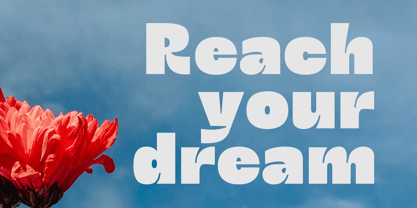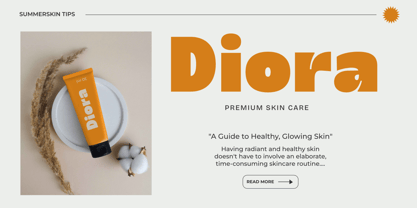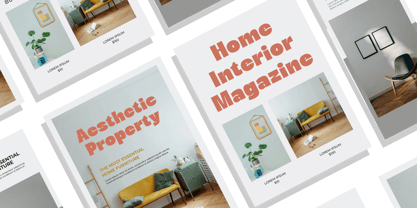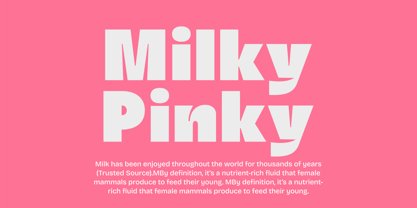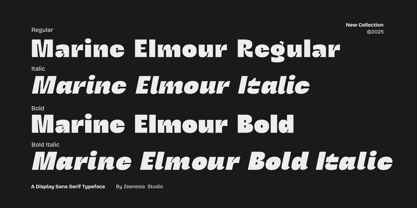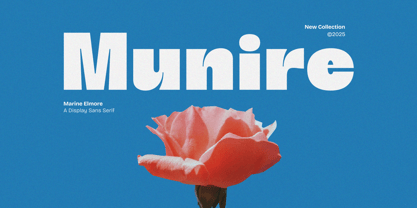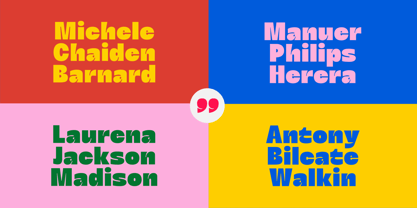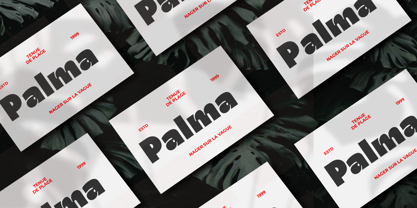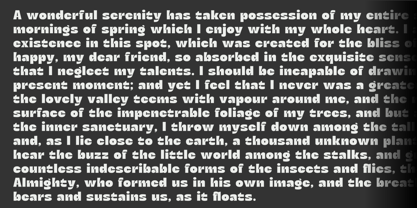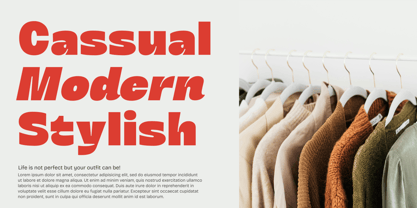
Marine Elmoure
by Zeenesia Studio
The Marine Elmoure Font Family was designed by Doni Purwoko and published by Zeenesia Studio. Marine Elmoure contains 4 styles and family package options. More about this family
Marine Elmoure is a refined and elegant serif typeface with a timeless charm. Designed for versatility, it comes in four styles: Regular, Italic, Bold, and Bold Italic, making it perfect for both classic and modern designs.
With its graceful curves, balanced proportions, and distinctive details, Marine Elmoure exudes sophistication and readability. Whether used for editorial design, branding, packaging, or digital content, this typeface adds a touch of elegance and professionalism to any project.
Elevate your designs with Marine Elmoure, where tradition meets contemporary style.
Designers: Doni Purwoko
Foundry: Zeenesia Studio